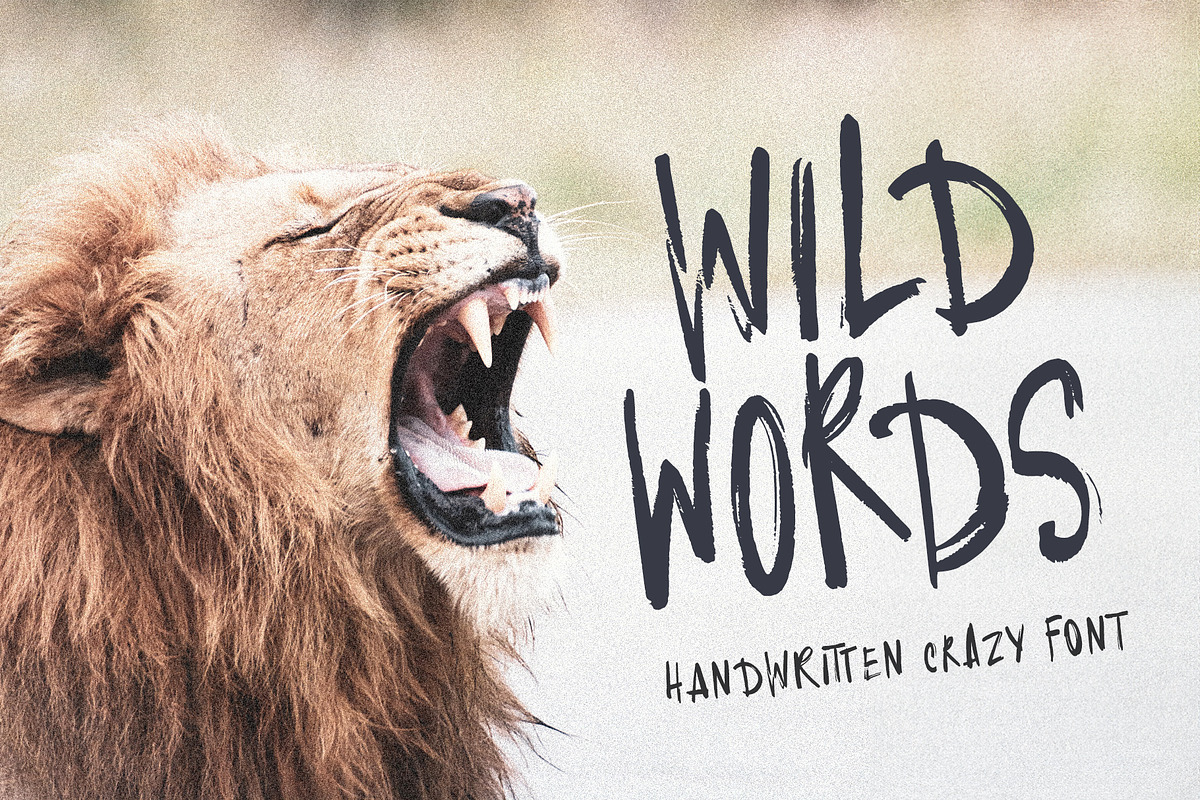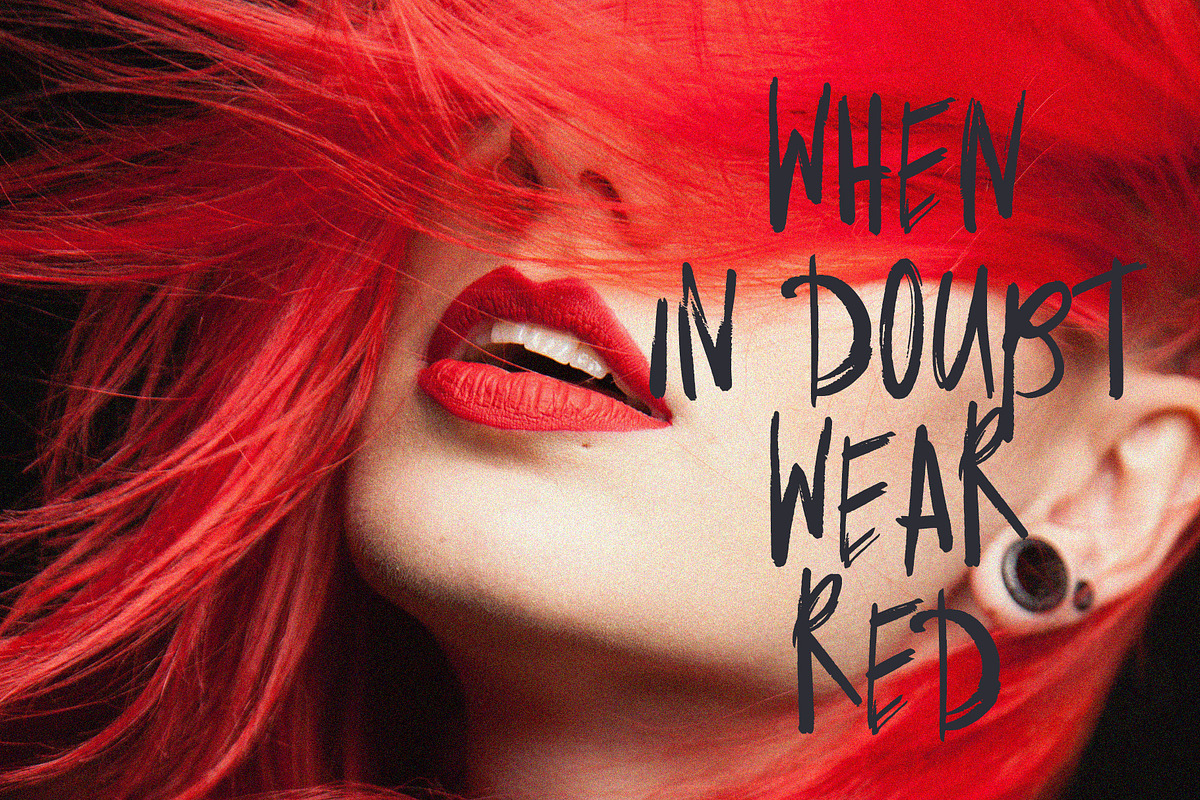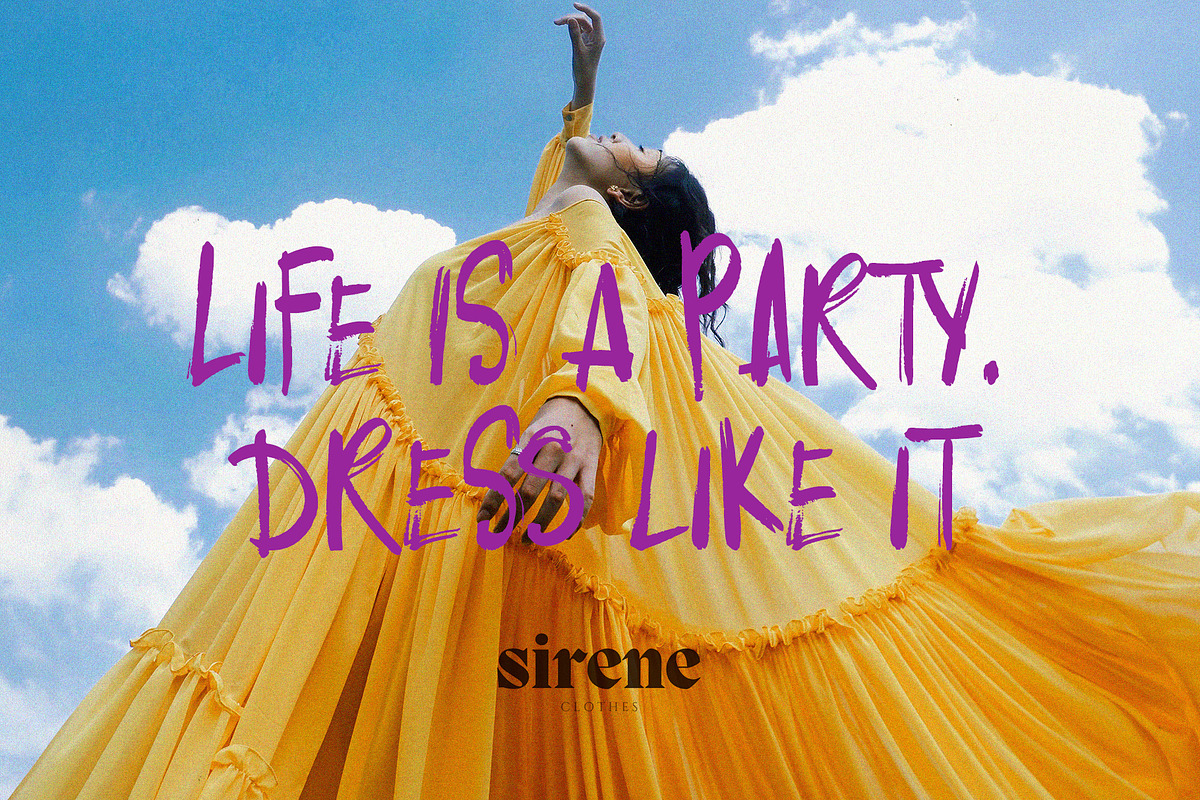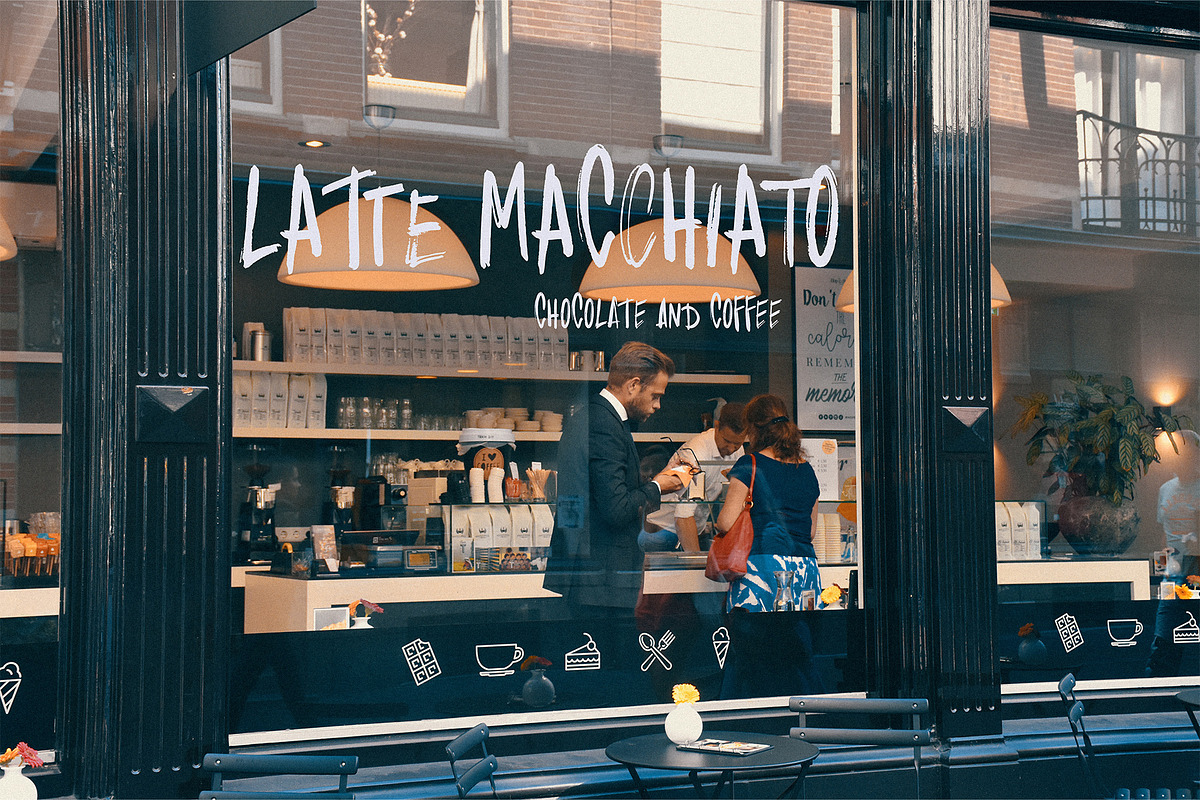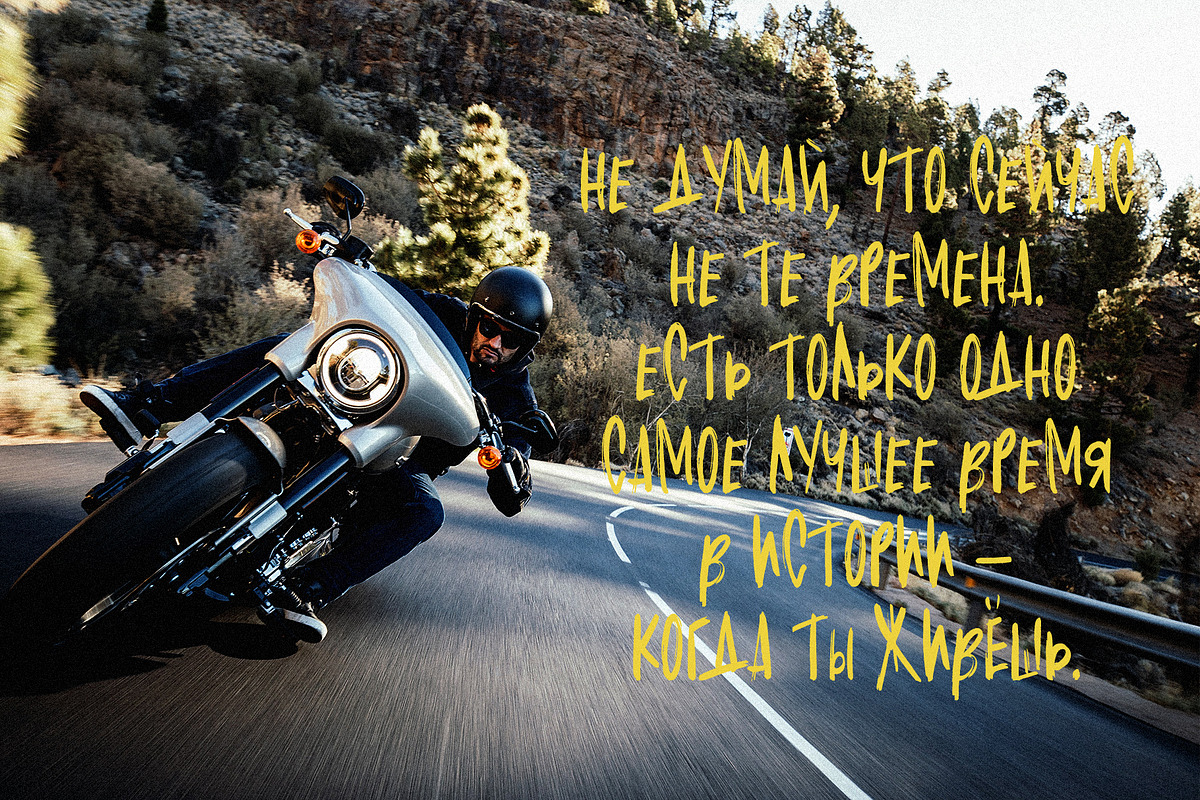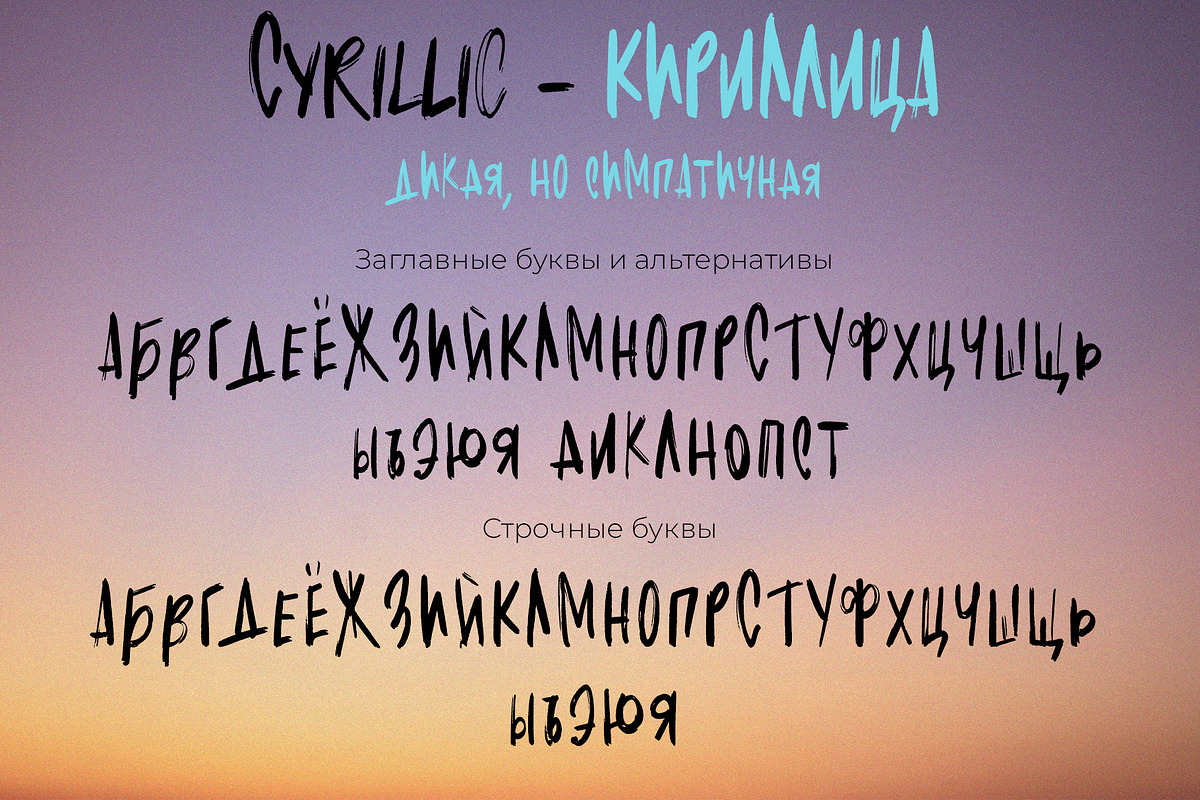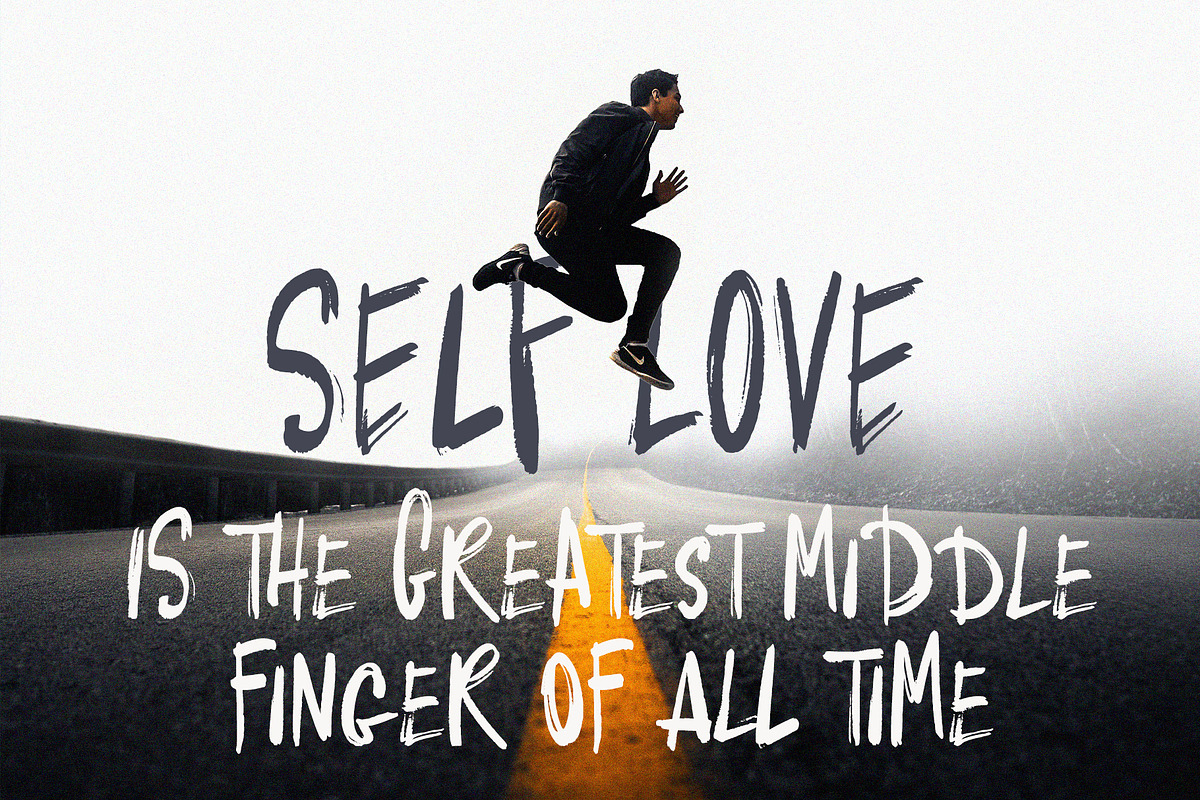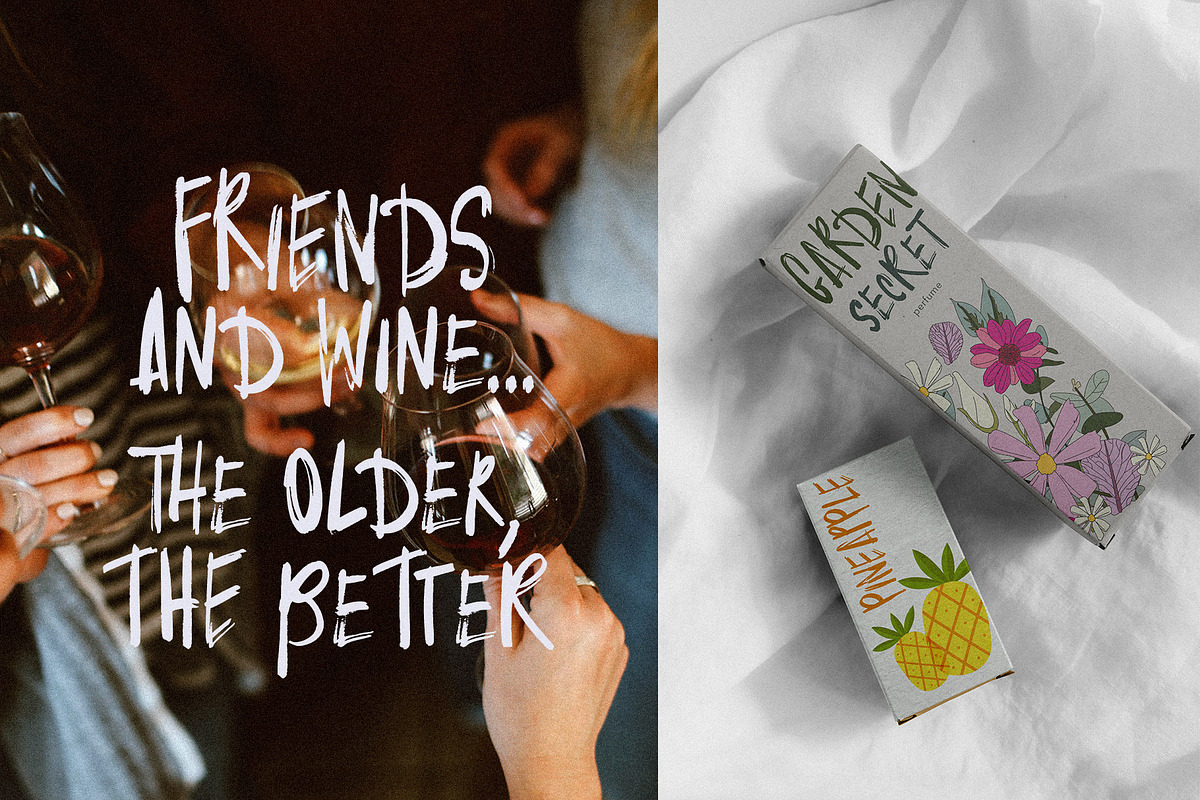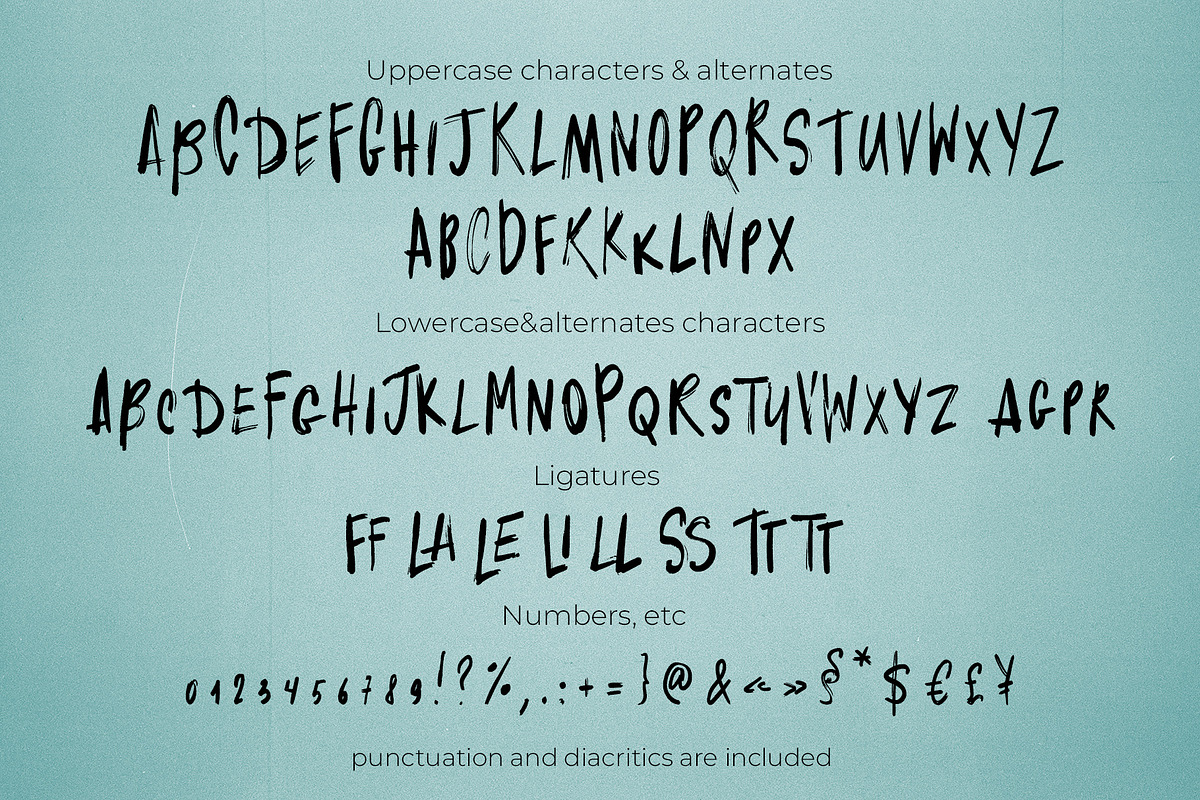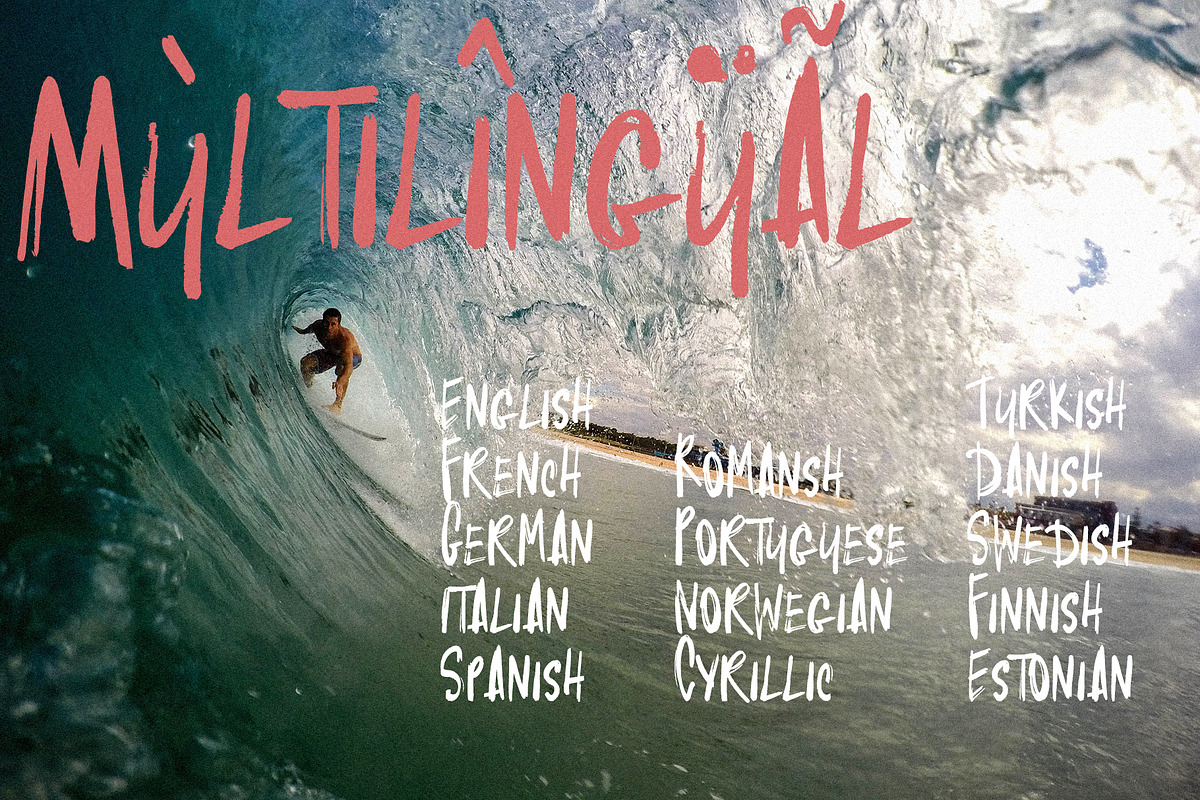
Handwritten messy font Wild Words
Wild Words handwritten messy font with handwriting textured letters.
This is WILD WORDS — my new handwritten font, written with a drying marker. The letters of this font seem to dance some wild crazy dance. The font has a pronounced texture, uppercase and lowercase letters are combined with each other, so you can use all possible combinations of them in one word, it is very authentic, contains a large number of ligatures and alternative characters. Supports many languages, including Cyrillic. The font is suitable for design for various things, including logo design, packaging, advertising, product design, websites, blogs and much more.
WILD WORDS has extensive language support, it includes English, French, German, Italian, Spanish, Portuguese, Danish, Norwegian, Swedish, Finnish, Estonian, Romansh, Turkish, Cyrillic. Need to know if your language is supported? Type any words in the text box below and see if all characters you need are there.